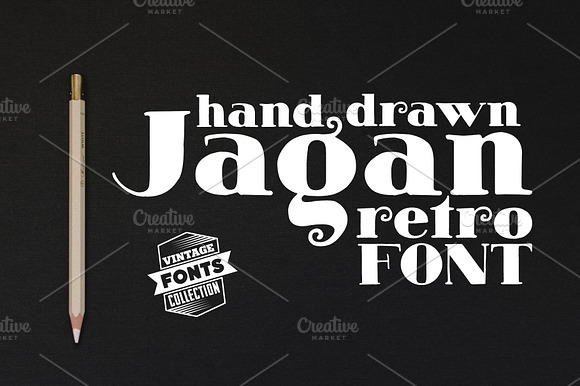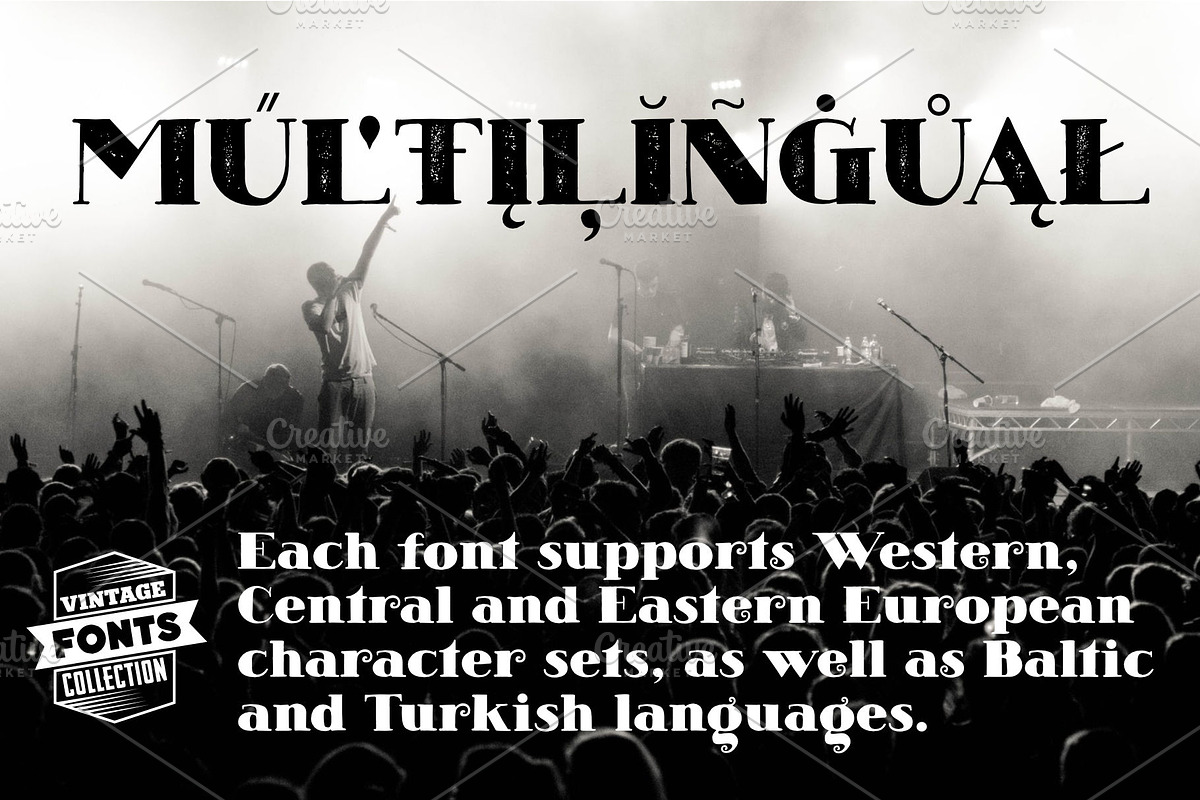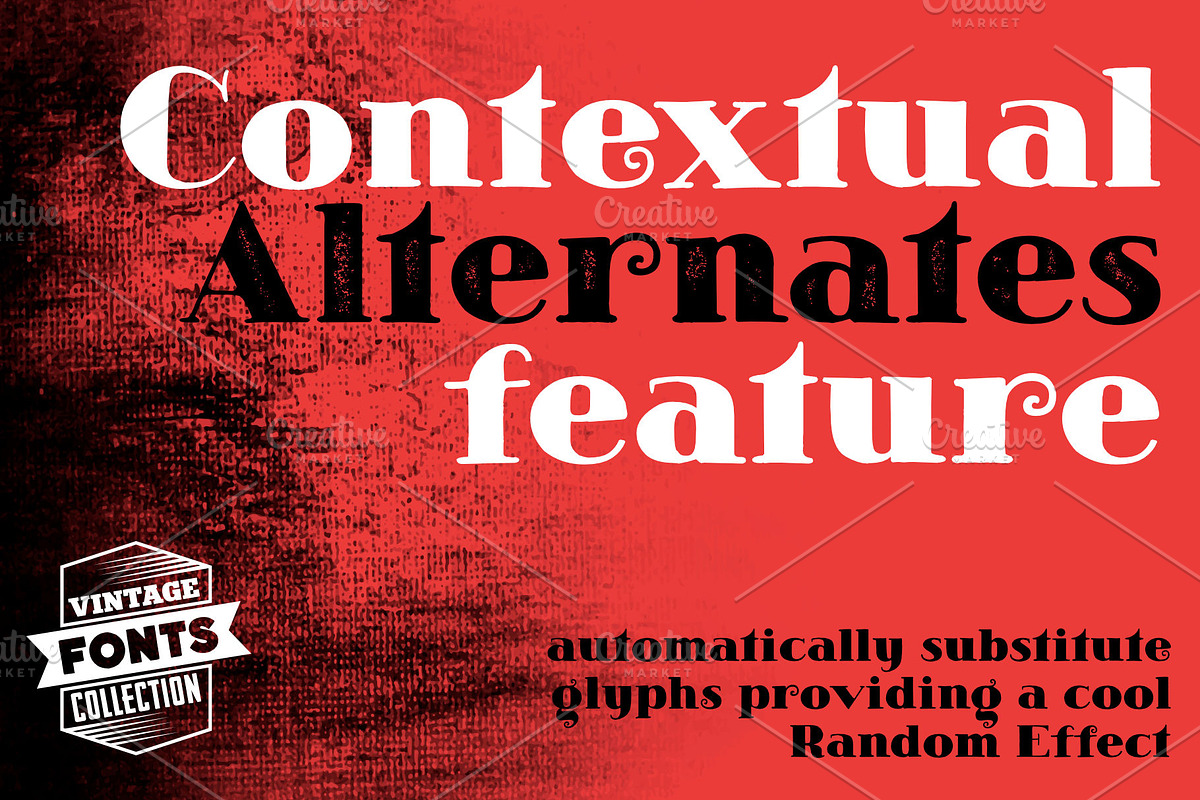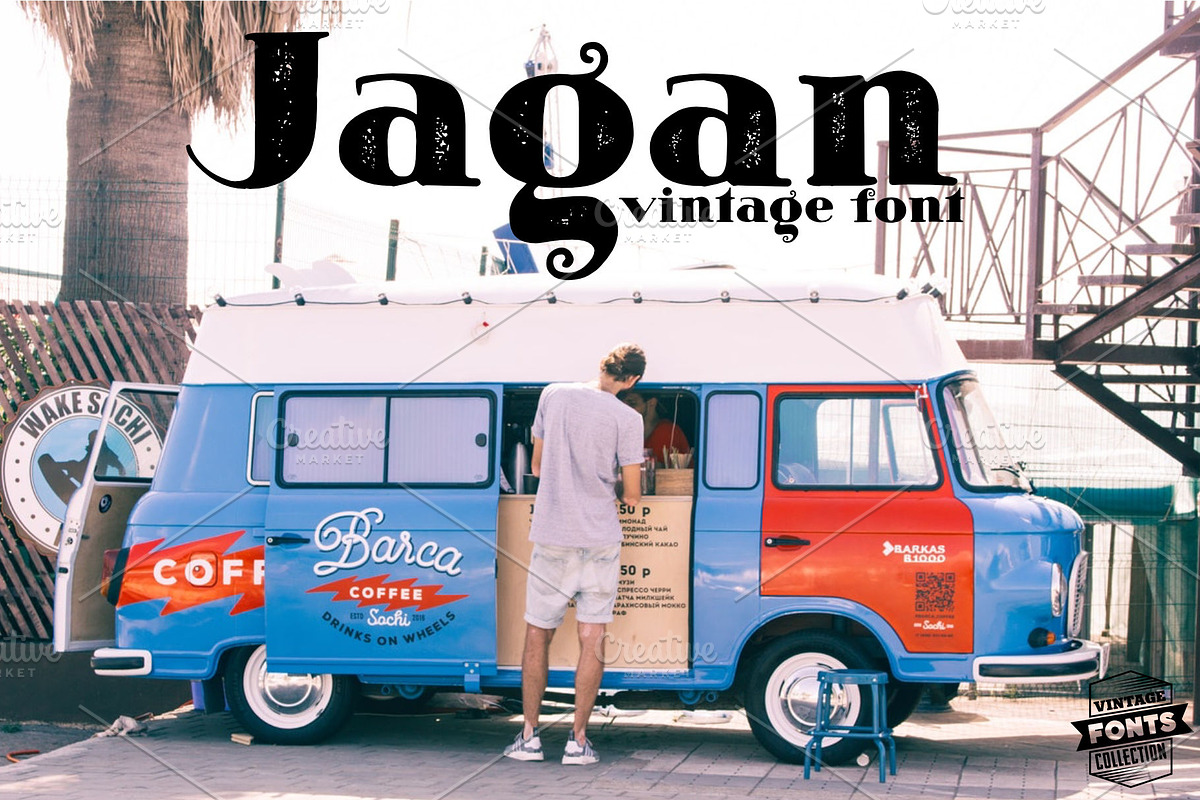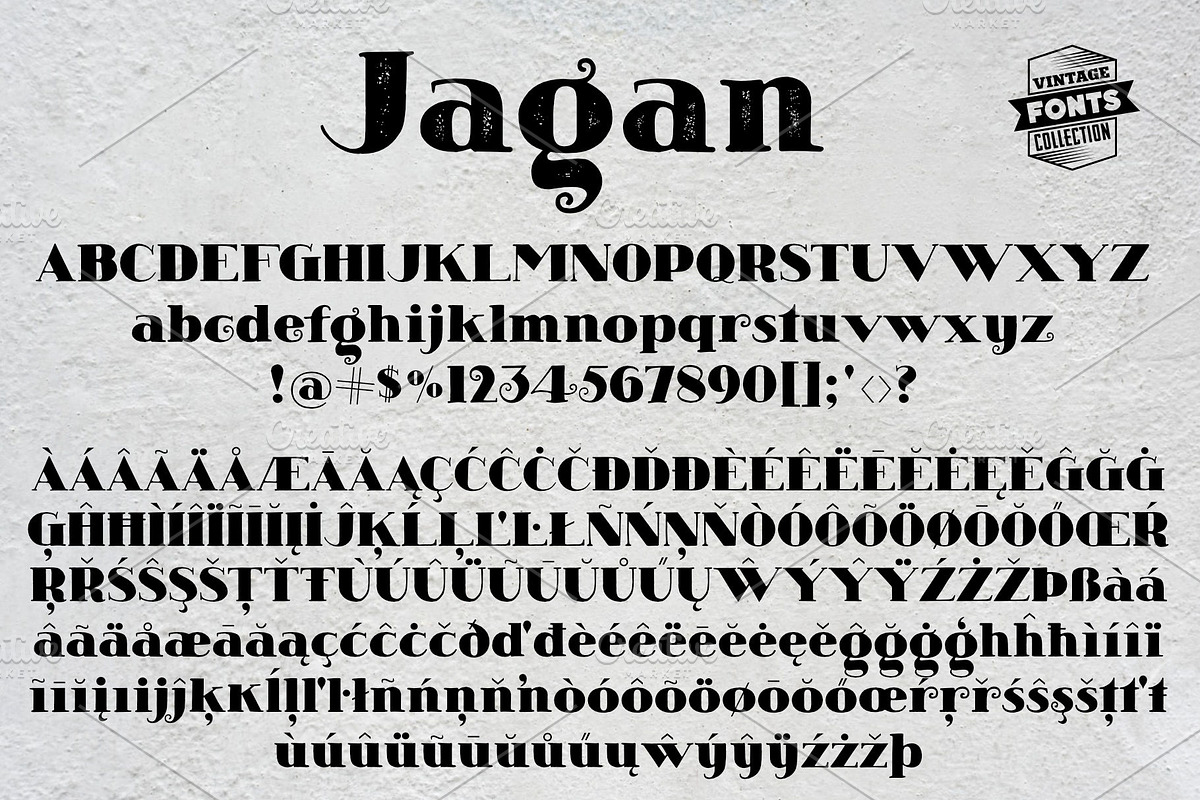
Jagan - 2 vintage fonts
Jagan is a set of 2 hand-drawn fonts inspired by vintage ads, old newspapers and retro sign painting. Every lowercase letter has three variations. When the font is used in OpenType-savvy applications, the 3 variants of glyphs are automatically alternated to achieve a random-like effect.
- Language support includes Western, Central and Eastern European character sets, as well as Baltic and Turkish languages.
- Every lowercase letter has three variations.
- When the font is used in OpenType-savvy applications, the 3 variants of glyphs are automatically alternated to achieve a random-like effect.